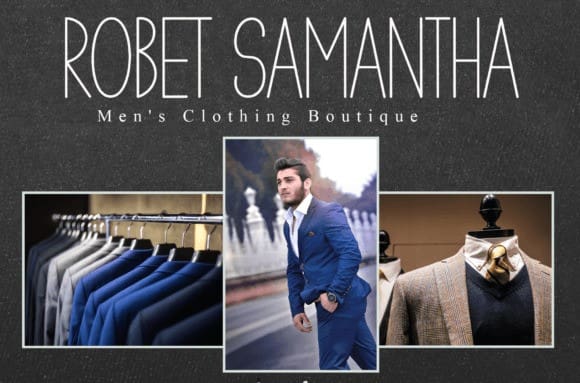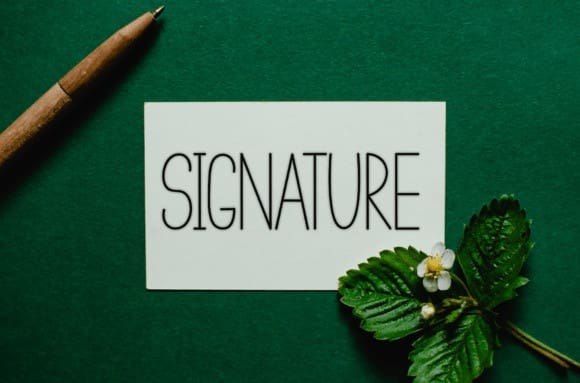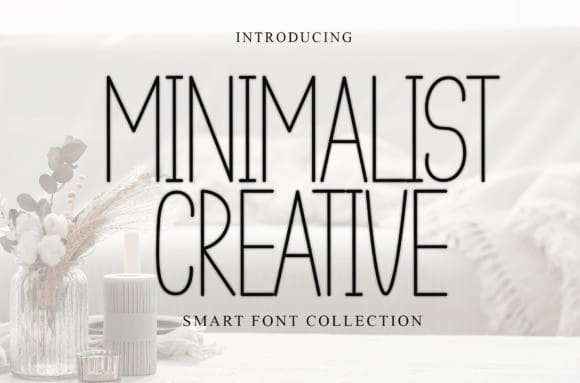
Minimalist Creative Font
Minimalist Creative Font is a cute and casual font, carefully handcrafted to become a true favorite. Its casual charm makes it appear wonderfully down-to-earth, readable and, ultimately, incredibly versatile. Minimalist will look outstanding in any context, whether it’s being used on busy backgrounds or as a standalone headline!